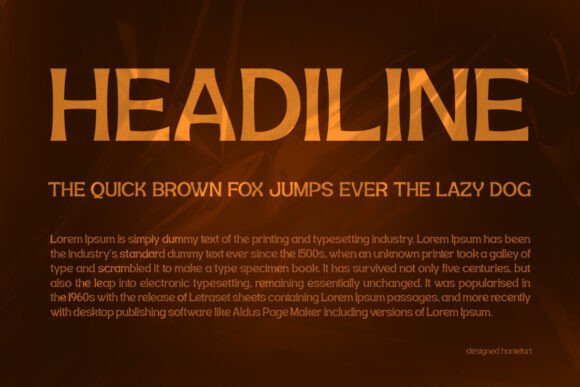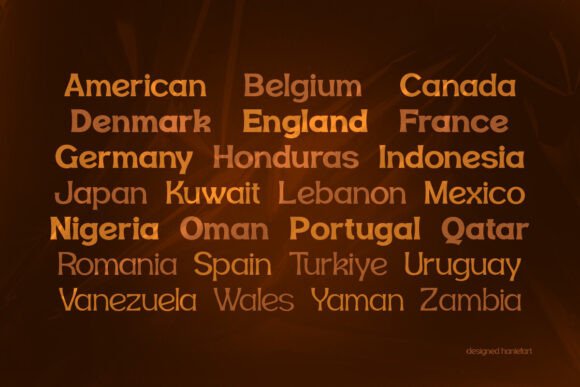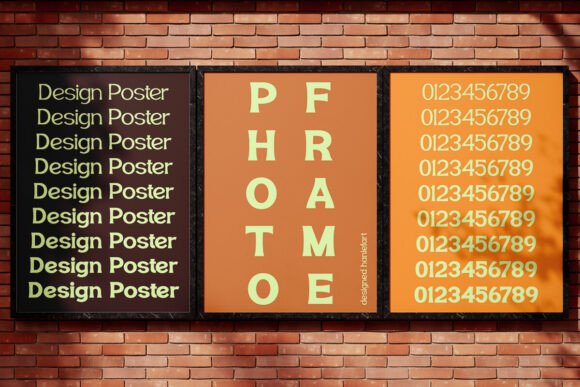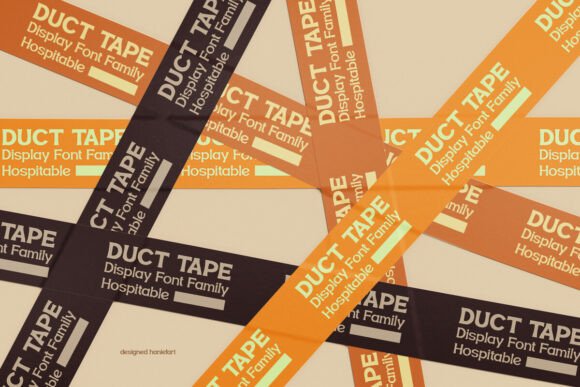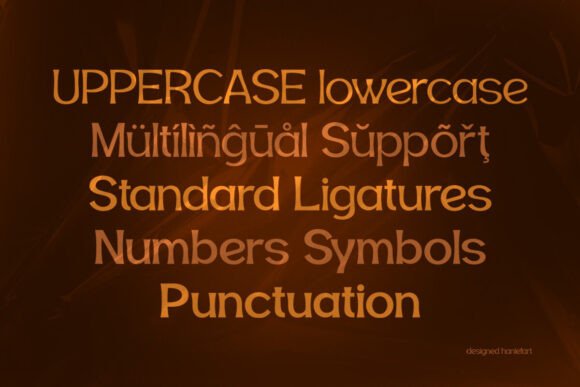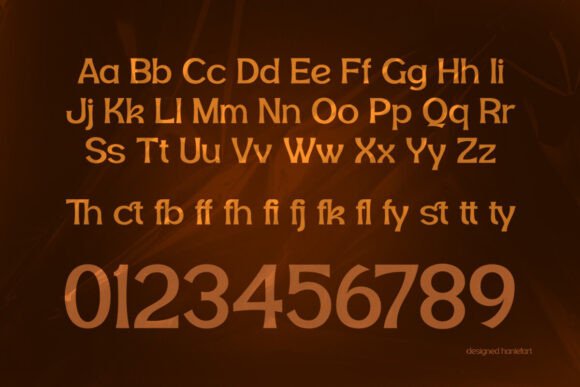
Introduction to Hospitable Font
Hospitable is a sophisticated sans serif display font family.
| 👤 Author | haniefart |
Carved with sharp angles, this typeface has a sleek and elegant character Hospitable consists of uppercase, lowercase, numbers, punctuation, standard ligatures, and also some multilingual support.